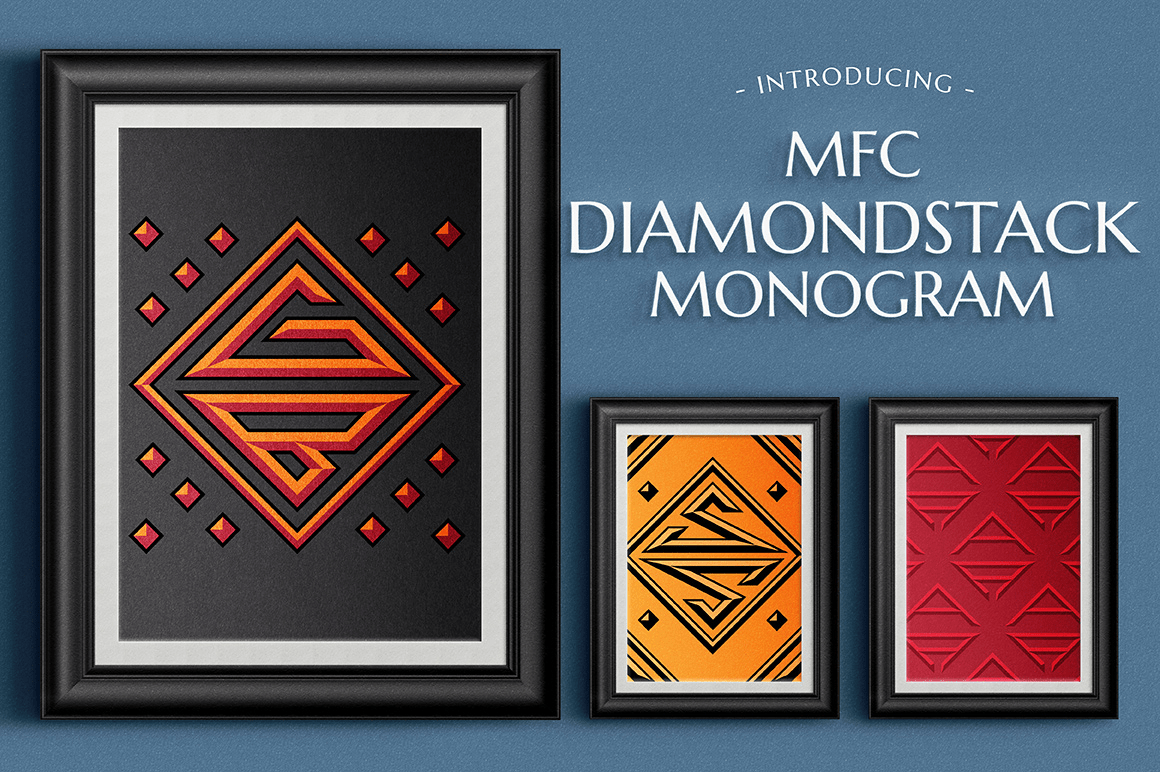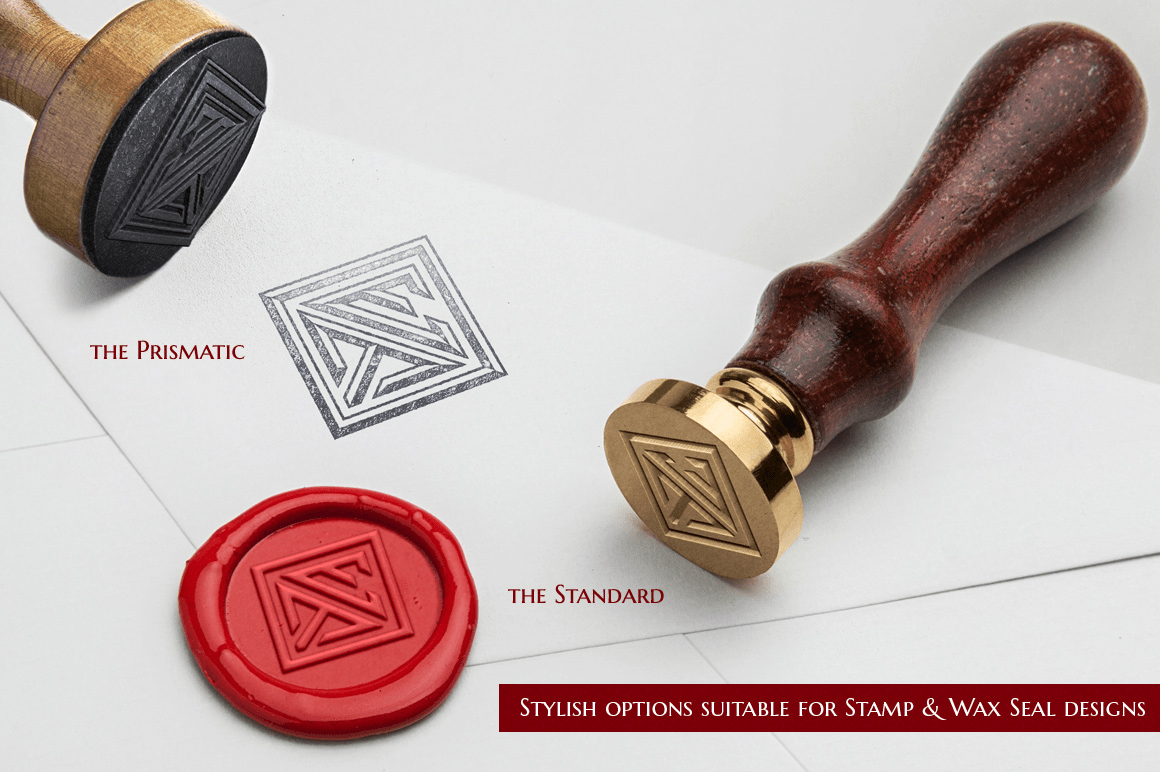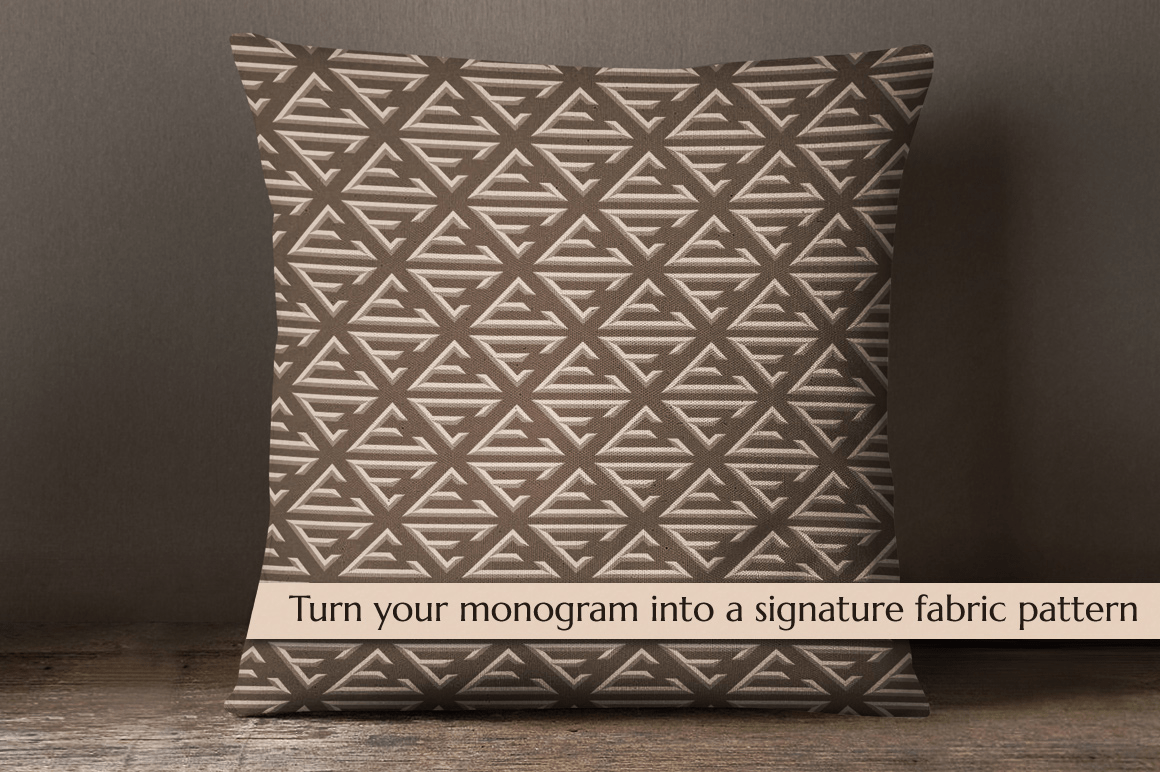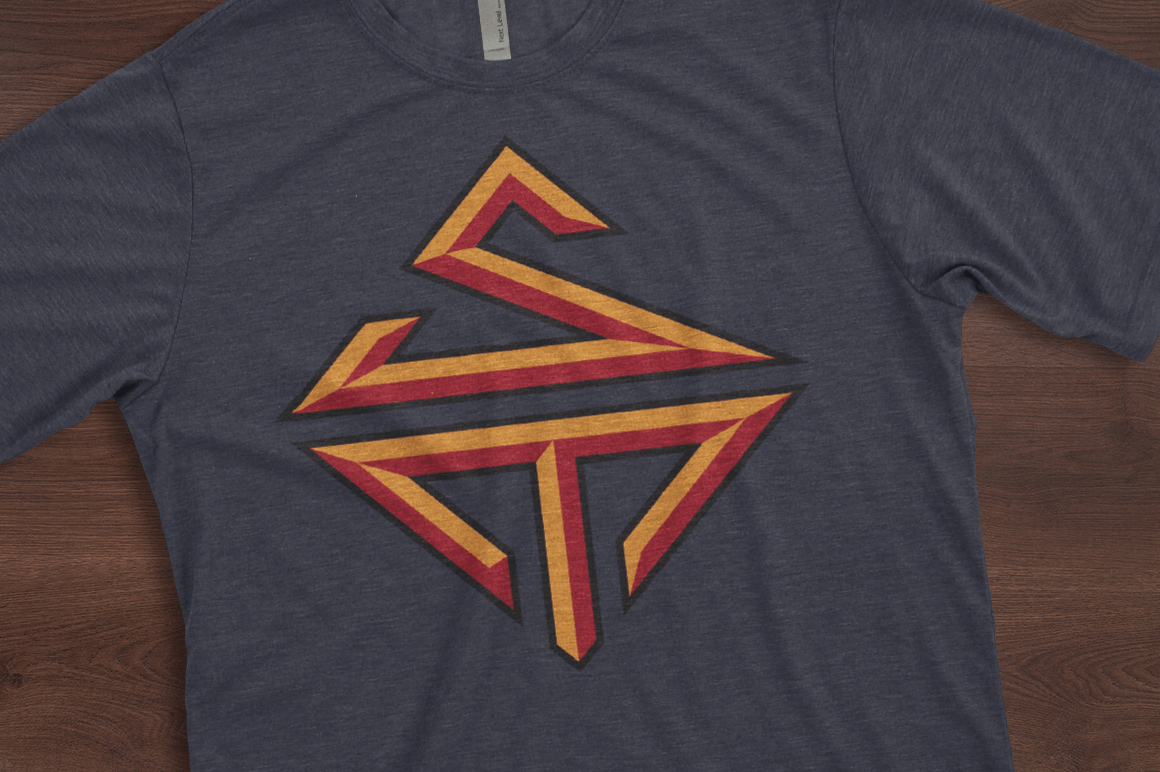
MFC Diamondstack Monogram
Font Family by Monogram Fonts Co
MFC Diamondstack Monogram finds its historical influence in our diamond-shaped Diamondside Monogram, however this time the monogram letters are stacked. This style also includes layerable chromatic faceting for an updated look.
MFC Diamondstack Monogram is capable of creating two letter monograms, either free-floating or surrounded by a selection of different frames. The family adds two more fonts, Diamondstack Monogram Back and Diamondstack Monogram HiLight. The Back font used alone has a bold appearance, while the Basic version has a lighter appearance, and the HiLite adds a hilight faceting. Three layerable styles with multiple uses, combined for dimensional effects or alone.